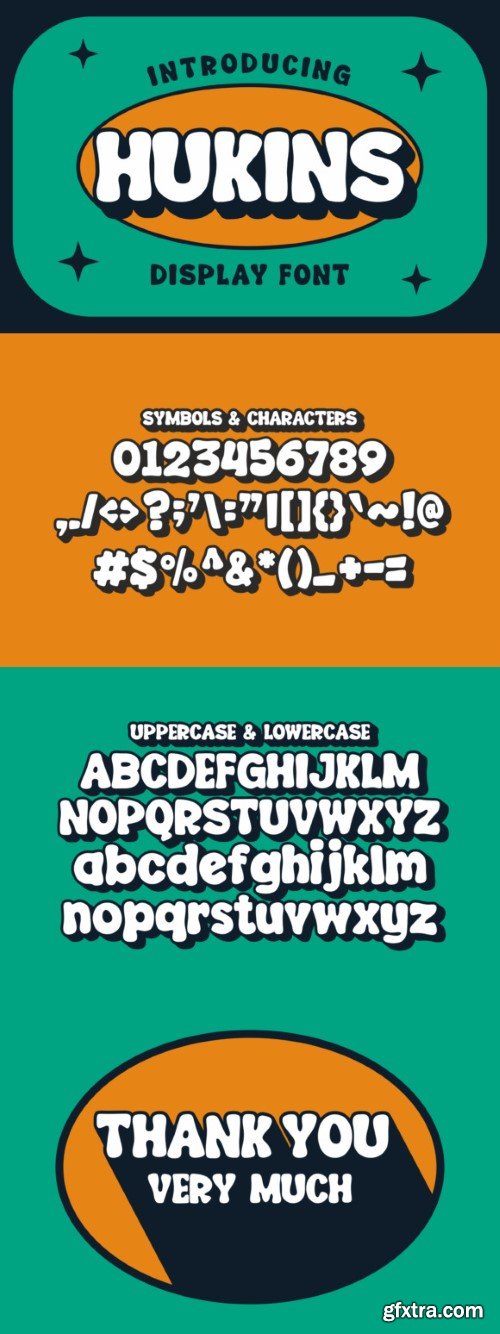
Hukins Display Font
**Hukins**
Perfectly suited on print/screen. it’s perfect for Branding, name card, poster, logo, magazine,
cover, banner, t-shirt and headers, or even large-scale artwork.
Features:
* Uppercase & Lowercase
* Number
* Punctuation